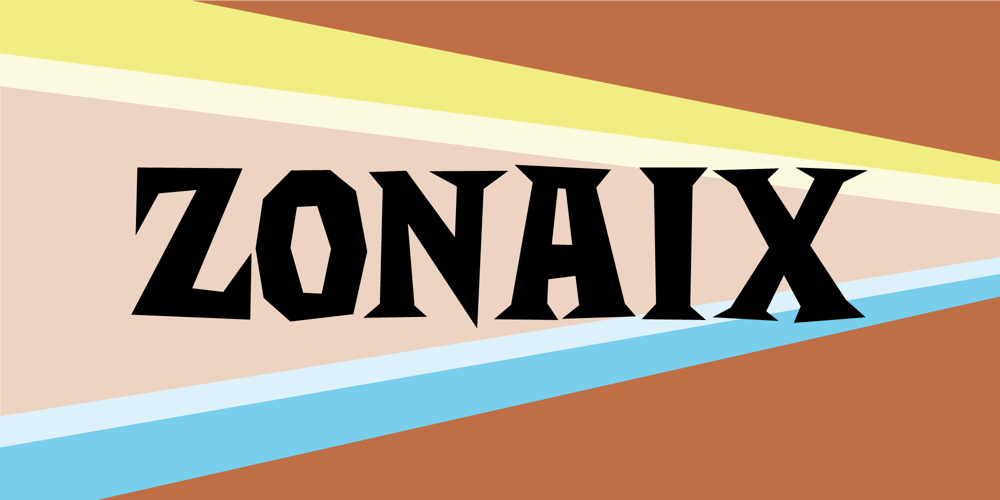
Zonaix Font Family was designed by Jakob Fischer and published by PizzaDude.dk. Zonaix contains 2 styles and family package options. In October 2010 I released a font called “Zanoix” It was based upon a an old horror movie poster. I looked through and old folder, and found the font that served as a base for this the grungy font.Zonaix is opposite to Zanoix, because it is super clean, pointy and is made entirely of straight lines! With the sharp pointed serifs and whacky lines, it is a good choice for a legible seriffed font – not necessarily for anything scary!